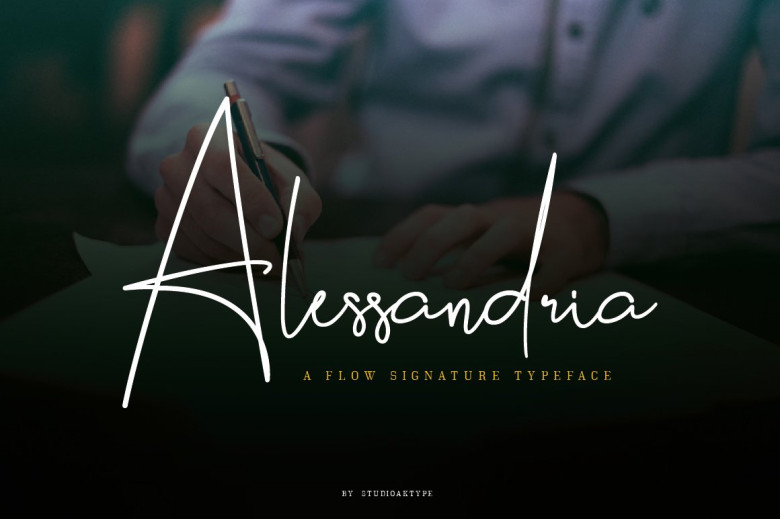
Alessandria Signature Font
Continues to be a very beautiful handwritten script font. A font that looks absolutely handwritten and created by hand. Introducing Alessandria Font. This letter is made for the purposes of branding design, the scratches look flowing naturally, it is perfect for designing your own brand and for other branding designs, these letters look perfect on all printing techniques, foil emboss, embroidery, and others.